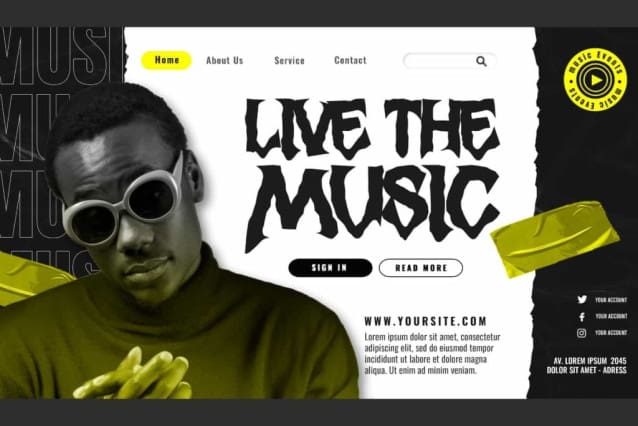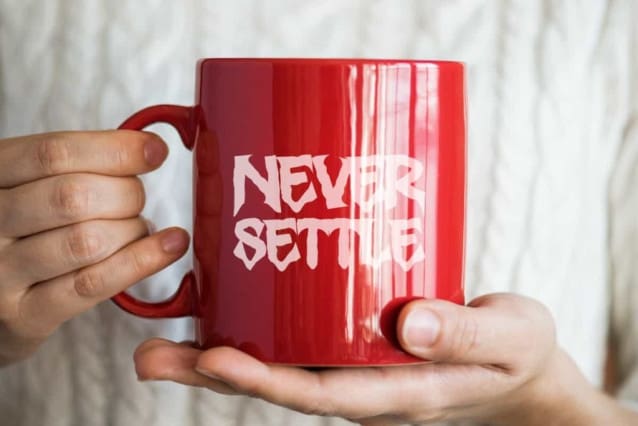
Moncurse Display Font
Moncurse Display Font is a strong horror display font with sharp in the shape. This font is also called black metal which gives a bold and mysterious impression at the same time because it has an amazing shape. Ideal for automotive, clothing brand, coffee shop, event or festival, game, graphic design, outdoor activities, racing, sports, and more.
Moncurse Display Font includes full set of ALL CAPS for Uppercase and Lowercase Basic Characters, Numbers, Punctuation and Symbols. It is superior in terms of readability and size, as it is specifically designed as a perfect and dynamic font for its users. Perfect for billboard, branding, brochure, cards, custom design, editorial design, headers, labels, logos, monograms, poster, screen print, sleeve paper, stickers, website, or just art text stringing words.